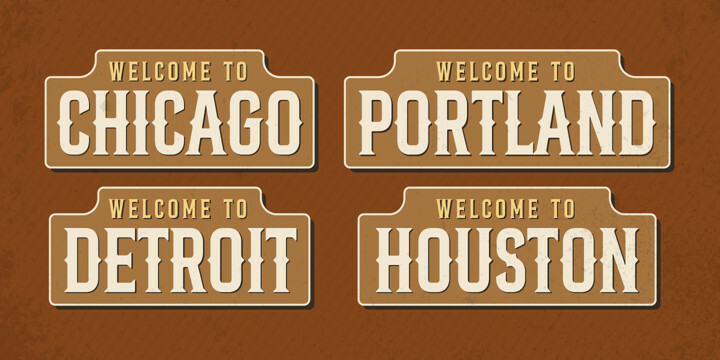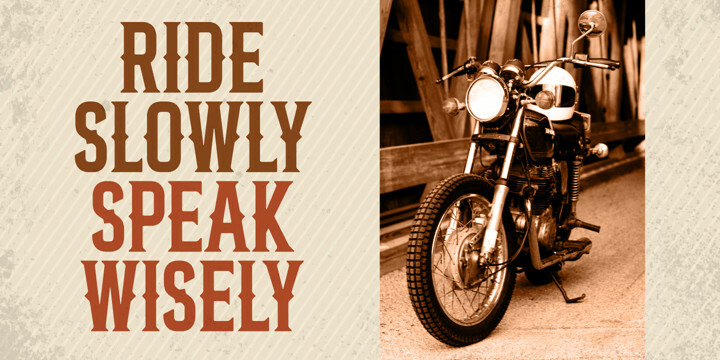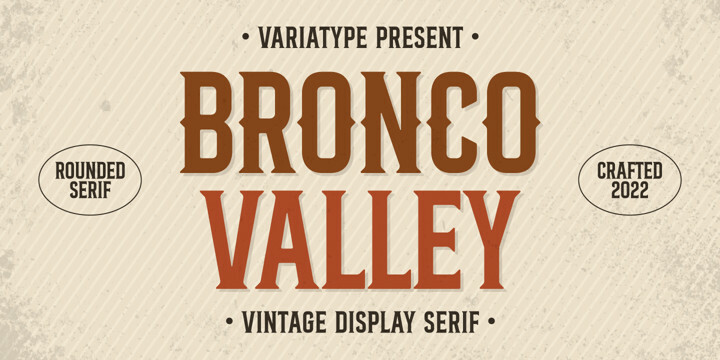
Bronco Valley Font
Bronco Valley FontBronco Valley is designed with vintage style or you can say “American Rodeo” for classic look branding, logotype, poster design, t-shirt design, and much more.
Bronco Valley Font